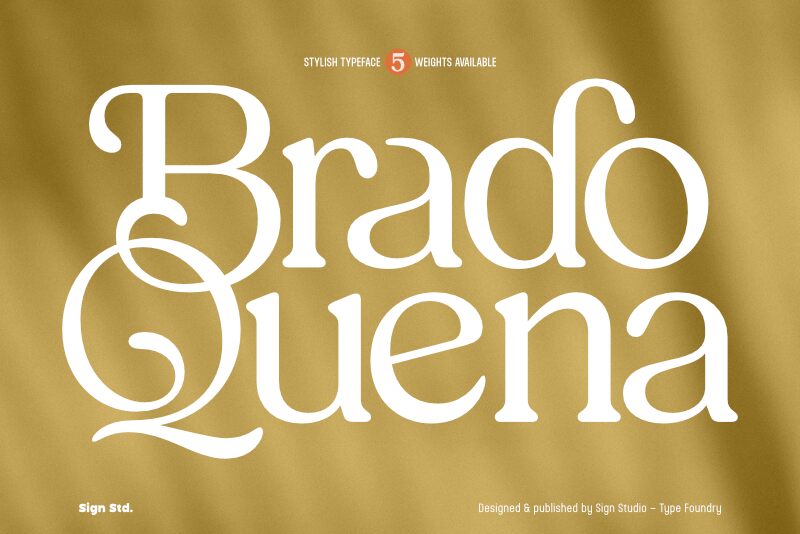
Brado Quena font by Sign Studio is an extravagant and sophisticated free font that strikes a balance between style and modern elegance. The artistic flair of this new typeface is characterized by its luxurious look, dramatic feel, and ornamental design. Many users will love the decorative flourishes in this font which are just bold enough to be noticed without being too exaggerated.
Retro but furnished with a fresh modern taste, Brado Quena font is truly a timeless classic. It can be used to design visually appealing book covers, movie posters, and general print layouts. Use it for packaging, advertising, branding, magazines, or any other purpose. Let your headlines, titles, and texts shine whenever you deploy this classic font.